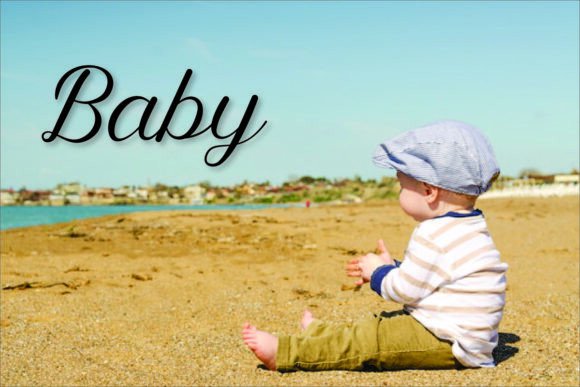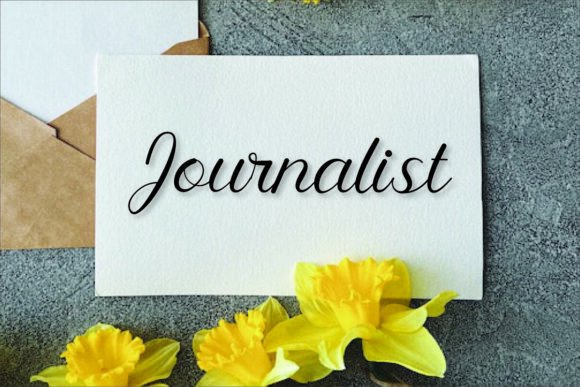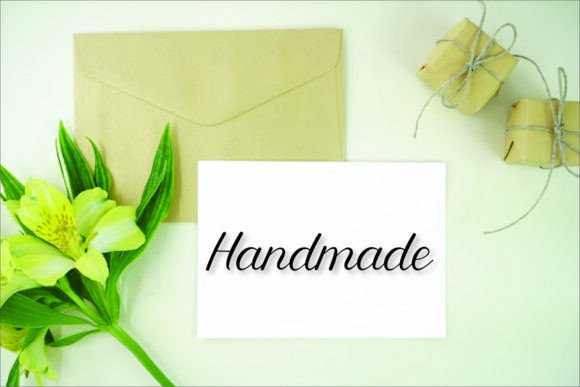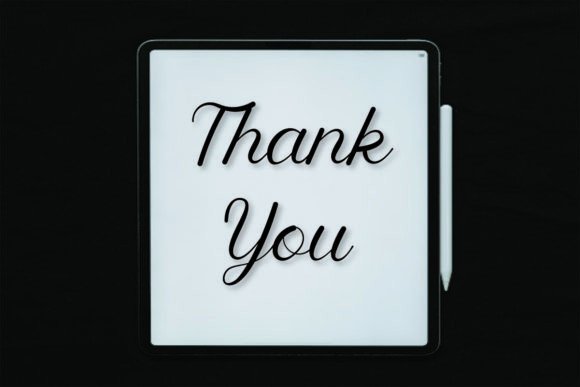
Introducing Discount Font: Elevate Your Designs with Timeless Elegance
In the world of typography, fonts play a crucial role in conveying the tone and aesthetic of a design project. For designers and crafters seeking to add a touch of sophistication and elegance to their work, the Discount Font is an exceptional choice. This trendy handwritten font boasts a contemporary atmosphere and impeccable form, drawing inspiration from timeless classic calligraphy.
The Essence of Discount Font
Discount Font is a beautiful, hand-crafted typeface that exudes refinement and poise. Its unique blend of traditional calligraphy and modern sensibilities makes it an ideal choice for a wide range of design applications, from luxury branding and advertising to packaging and digital media. The font’s elegant lines, precise letterforms, and flowing connections create a sense of continuity and harmony, perfect for designs that require a high level of sophistication.
Key Features of Discount Font
- Trendy and Contemporary: Despite its classic inspiration, Discount Font has a distinctly modern feel that will elevate your designs and keep them looking fresh.
- Handwritten with Precision: The font’s hand-crafted nature gives it a personal touch, while its precise lines and letterforms ensure consistency and legibility.
- Elegant and Refined: Discount Font is characterized by its flowing connections and elegant lines, making it perfect for designs that require a touch of luxury and sophistication.
- Versatile: This font can be used across various design platforms, including print, digital, and web applications, making it a valuable addition to any designer’s toolkit.
Applications of Discount Font
Discount Font’s versatility and elegance make it suitable for a wide range of design projects, including:
- Luxury Branding: Create a lasting impression with a sophisticated logo or wordmark that reflects your brand’s high-end values.
- Advertising and Marketing: Use Discount Font to add a touch of elegance to your ad campaigns, brochures, and marketing materials.
- Packaging Design: Elevate your product packaging with a font that exudes luxury and refinement.
- Digital Media: Incorporate Discount Font into your website, social media graphics, or digital publications to add a level of sophistication and professionalism.
Why Choose Discount Font?
In a world where design trends are constantly evolving, Discount Font offers a timeless solution for designers and crafters seeking to create elegant and refined designs. Its unique blend of classic calligraphy and modern sensibilities makes it an exceptional choice for those looking to:
- Stand Out: With its distinctive and elegant style, Discount Font will help your designs stand out in a crowded marketplace.
- Convey Sophistication: This font’s luxurious feel and precise lines make it perfect for designs that require a high level of sophistication and refinement.
- Save Time: Discount Font’s versatility and ease of use save you time and effort, allowing you to focus on the creative aspects of your project.
Discount Font is a stunning, handwritten typeface that brings a touch of timeless elegance to any design project. Its unique blend of classic calligraphy and modern sensibilities makes it an ideal choice for designers and crafters seeking to create sophisticated and refined designs. With its versatility, elegance, and precision, Discount Font is sure to become a valuable addition to your design toolkit.